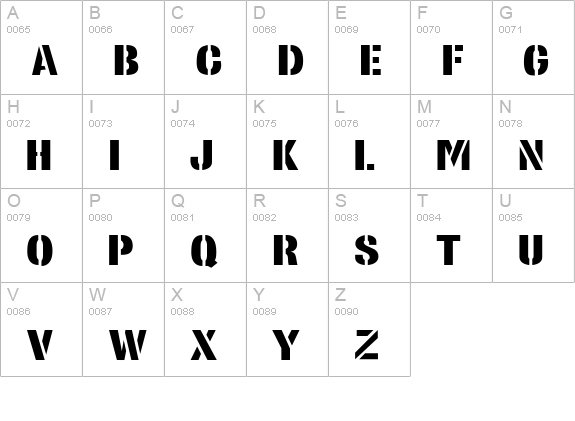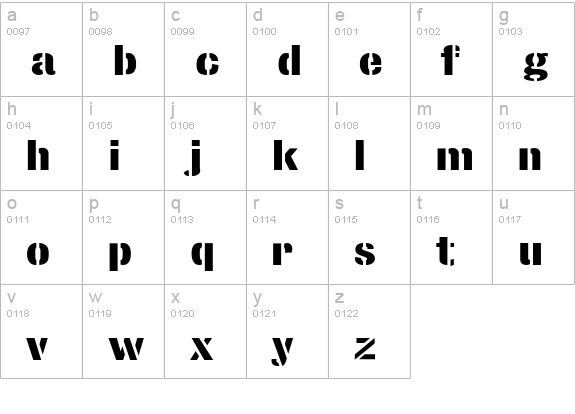
StencilSansExtrabold Regular Font Details
StencilSansExtrabold Regular is the standard, neutral variant in the StencilSansExtrabold typeface family \xE2\x80\x94 well suited to general body text, paragraphs, and standard typographic work.
StencilSansExtrabold Regular is a bold and impactful font that exudes strength and modernity. With its clean lines and sturdy appearance, this typeface is perfect for making a statement in headlines, logos, and posters. The extra bold weight commands attention and adds a touch of flair to any design project. What sets StencilSansExtrabold Regular apart is its versatility - it can be used in a variety of design applications, from print to digital media. Whether you're looking to create a bold and powerful visual identity or simply add a touch of sophistication to your project, this font has you covered. Best of all, StencilSansExtrabold Regular is available for free download at FontsMarket.com. This means you can easily access this high-quality font without breaking the bank. Don't miss out on the opportunity to enhance your designs with the bold and dynamic StencilSansExtrabold Regular font today!